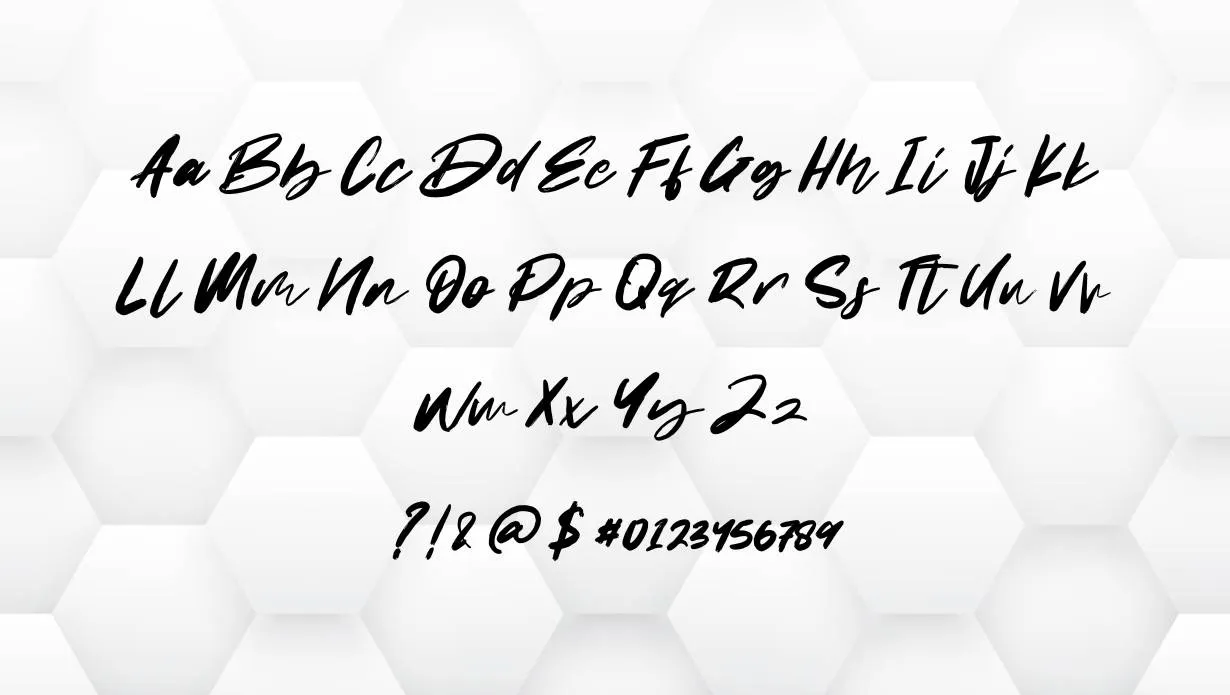
Oceania font is a wave of creativity crashing onto your words—fluid, artistic, and expressive. When you use it, your text becomes an art exhibit, showcasing a unique and creative perspective. It’s excellent for designs that call for that touch of artistic individuality.
| Name | Oceania Font |
| Designer | Vunira Design |
Oceania’s letters dance like brushstrokes on a canvas, each one contributing to the overall masterpiece of your message.